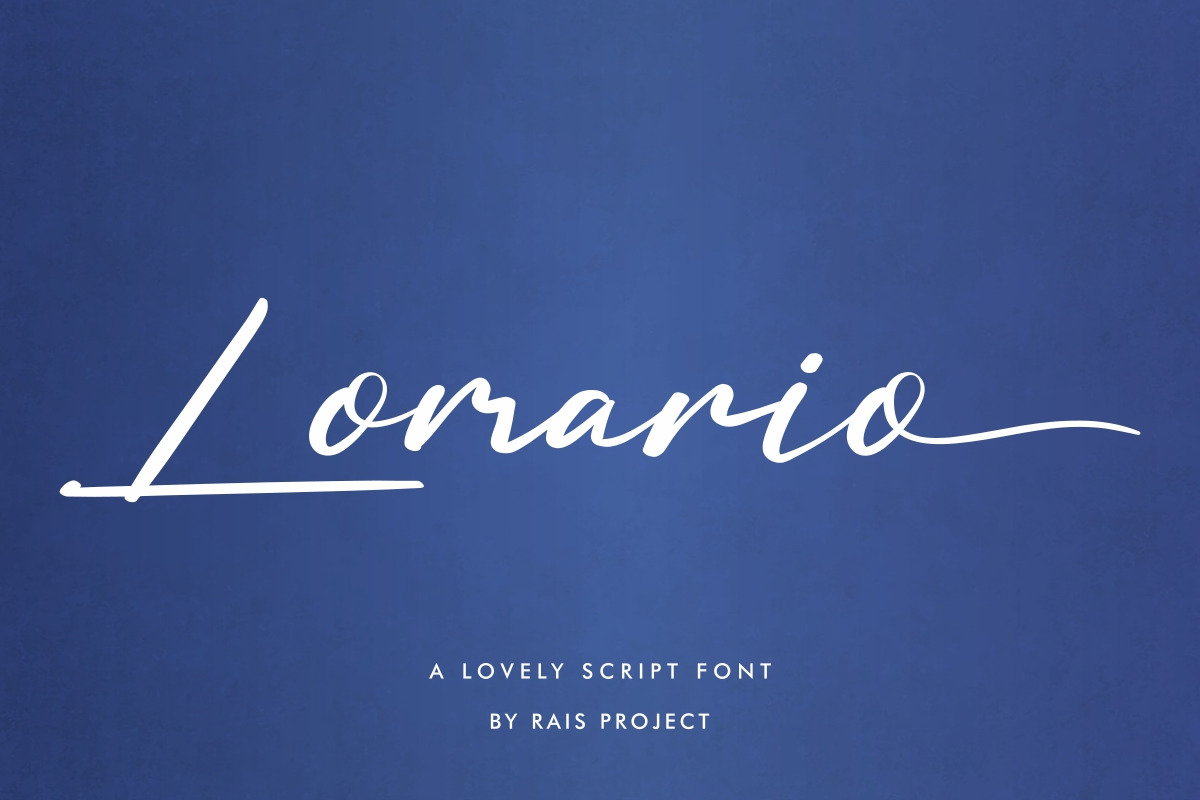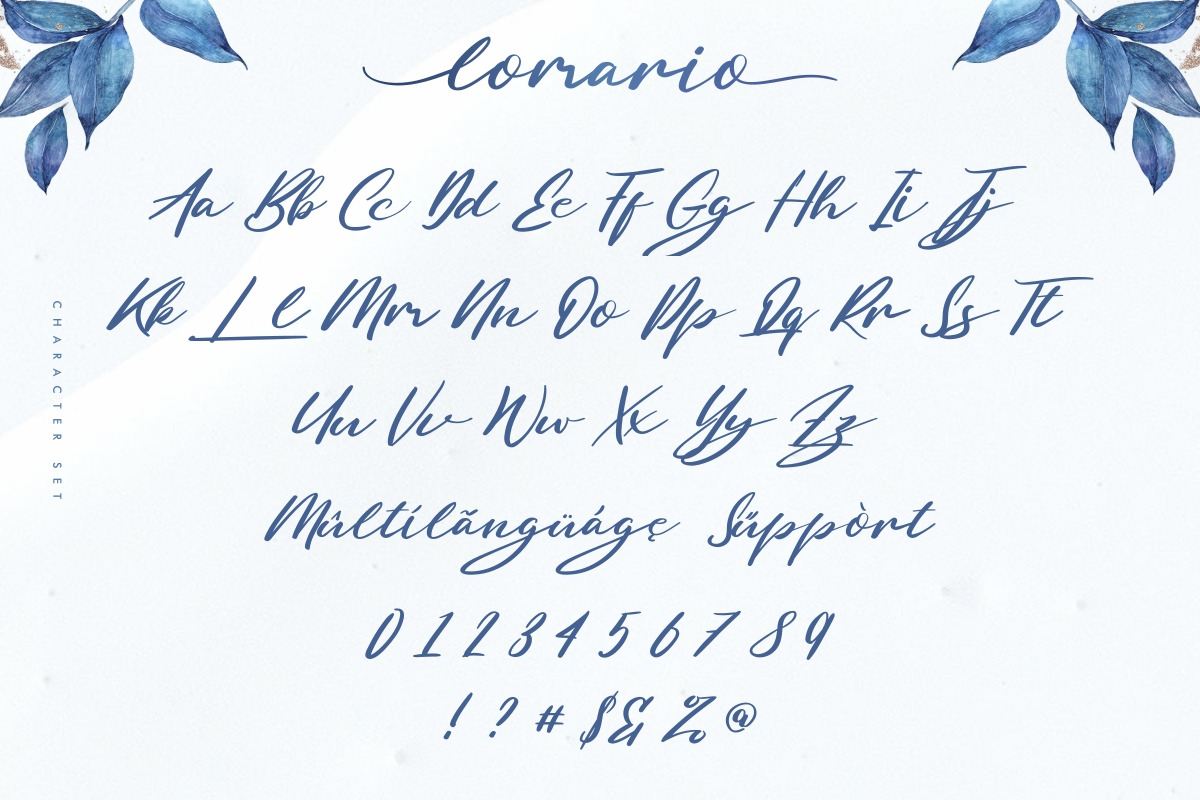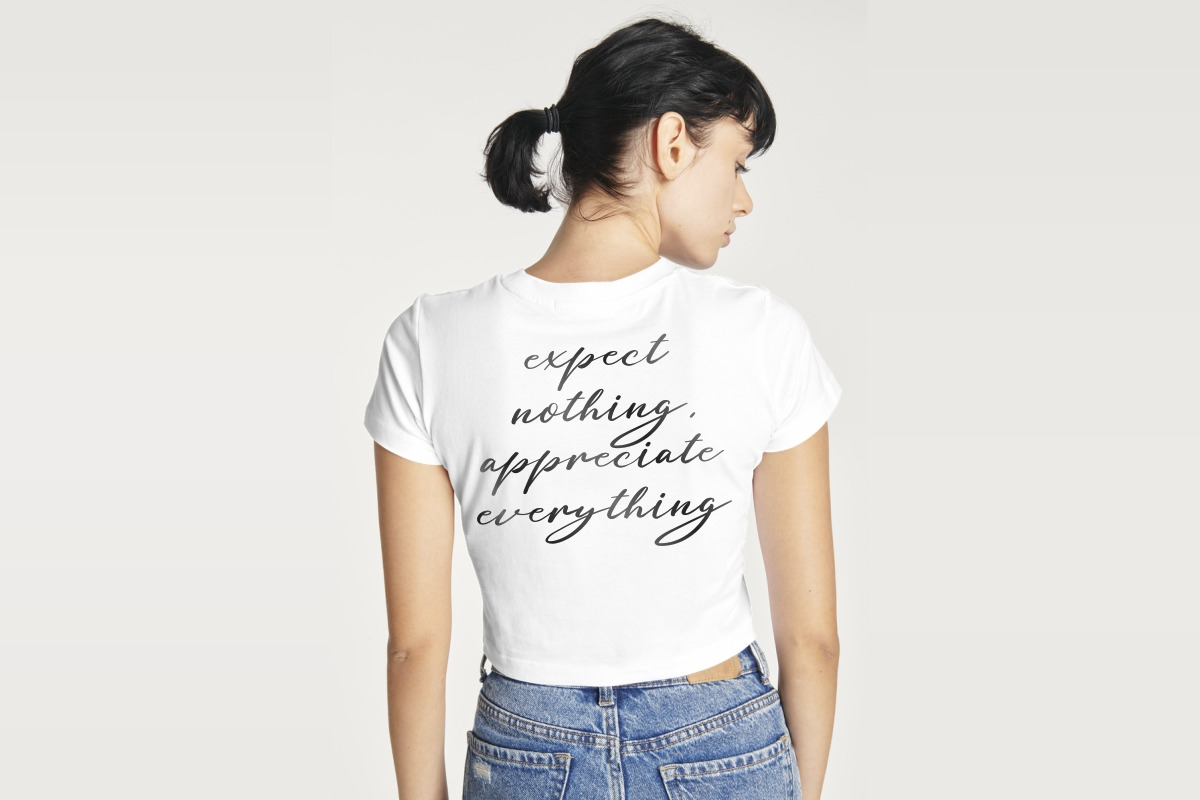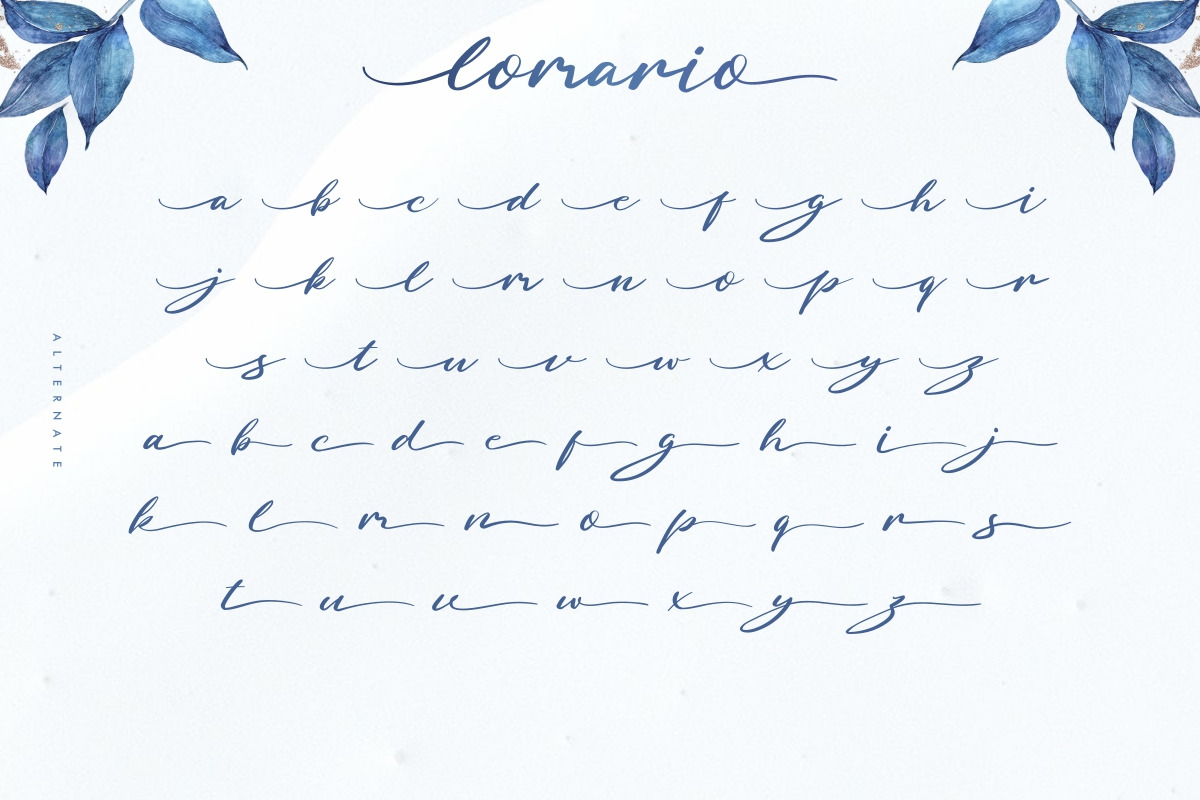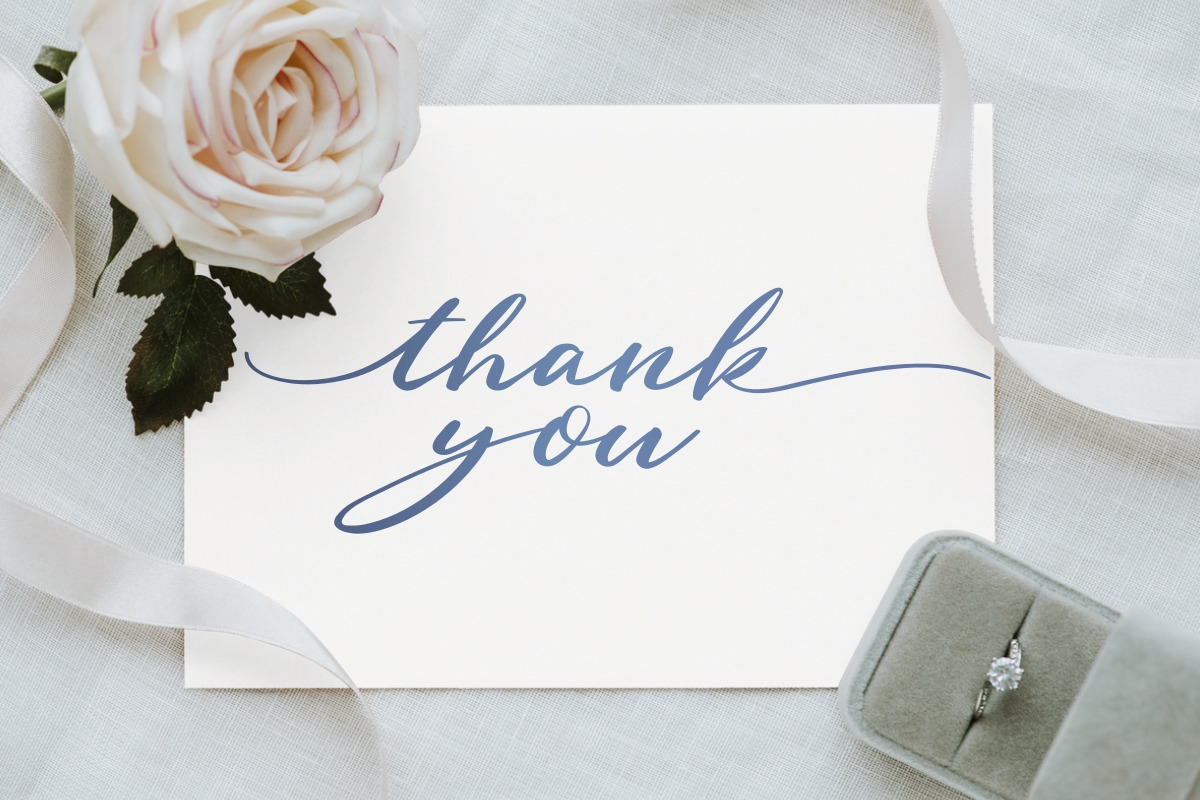
Lomario Calligraphy Script Font
Lomario Font is a beautiful calligraphy script font with elegant style. It will be stunning for any your special projects including : weddings, promotion, events, branding, etc